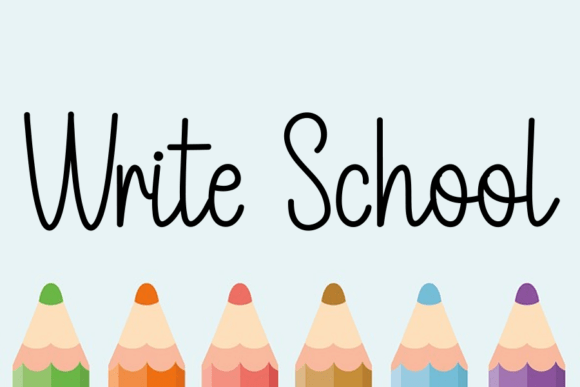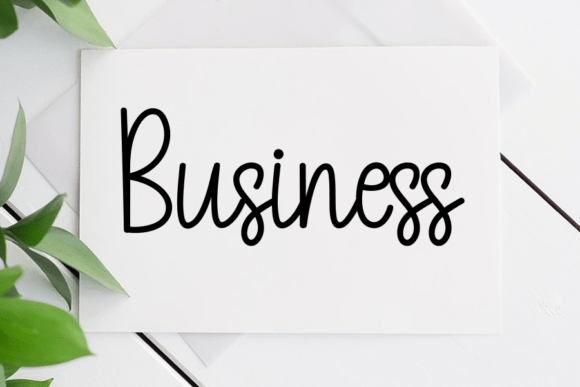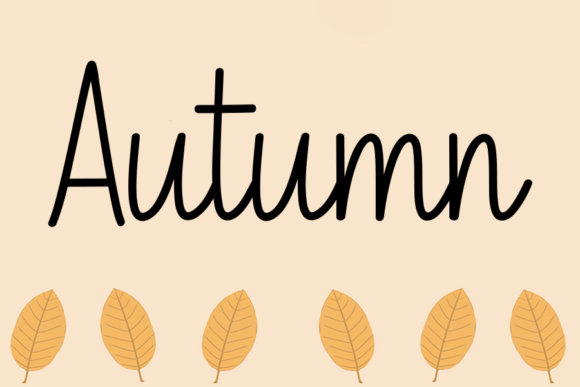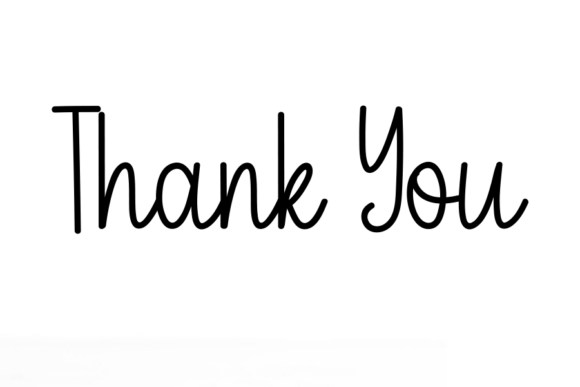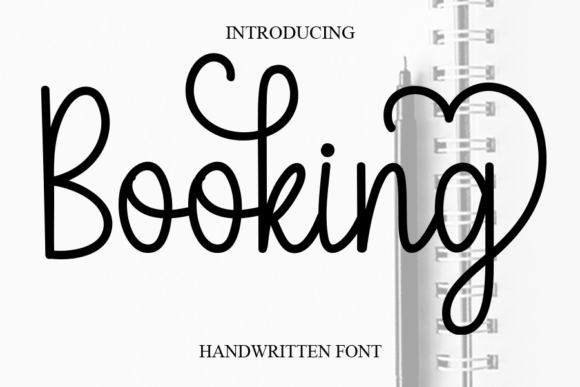
The Sweet Charm of Booking Font: A Designer’s Delight
Have you ever been in the middle of a design project, and suddenly, you’re stuck on finding the perfect font? I recall a particularly frustrating experience while working on a wedding invitation design. My client wanted a font that was elegant, yet casual; romantic, yet not too over-the-top. That’s when I stumbled upon Booking Font, a sweet and cursive handwritten font that has since become one of my go-to choices.
An Honest Review of Booking Font
- ✨ Sweet and Cursive: Booking Font’s gentle, cursive strokes add a touch of warmth and personality to any design.
- ✅ Versatile: This font looks stunning on a variety of design ideas, from branding and logos to wedding materials and greeting cards.
- 💕 Romantic and Joyful: Booking Font’s playful vibe makes it perfect for designs that require a touch of whimsy and romance.
- 👍 Elegant yet Casual: This font strikes the perfect balance between elegance and casualness, making it suitable for a wide range of projects.
While Booking Font is an excellent choice, there are a few things to keep in mind:
- 🤔 Limited Use in Small Sizes: Booking Font’s intricate details and cursive strokes may not be suitable for very small font sizes, as they may become difficult to read.
- ⚠️ Kerning Issues: As with any font, you may encounter kerning issues when using Booking Font. Make sure to adjust the kerning to ensure optimal readability.
The Designer Inspiration Behind Booking Font
While the true story behind Booking Font’s creation is unknown, it’s easy to imagine that the designer was inspired by the romance and whimsy of handwritten scripts. Perhaps they wanted to create a font that would evoke feelings of joy and playfulness, while still maintaining a level of sophistication and elegance.
| Font Name | Booking Font |
| Author | salma studio |
Q: What type of projects is Booking Font best suited for?
A: Booking Font is versatile and can be used for a wide range of projects, including branding, logos, wedding materials, greeting cards, and more.
Q: Is Booking Font suitable for body text?
A: While Booking Font is beautiful, it’s best suited for headlines and titles. For body text, you may want to choose a font that’s easier to read.